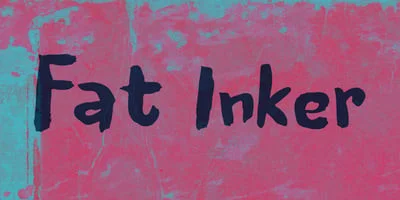
Fat Inker Font
Usage Examples: Fat Inker Font is perfect for bold branding, eye-catching posters, logo designs, and vibrant social media graphics.
Why It’s Exciting: This font’s chunky, playful style grabs attention instantly, making it ideal for projects needing a bold, modern vibe.
Font Families: Fat Inker Font includes Regular, Bold, and Italic variants, offering versatility for creative designs.
Elevate your design game with Fat Inker Font! Its unique, thick letterforms create a striking visual impact, perfect for standing out in competitive digital spaces. Whether you’re crafting a logo, designing a website banner, or creating print materials, Fat Inker Font delivers a fresh, contemporary look. Its clean lines and bold aesthetic ensure readability while adding personality to your projects. Download Fat Inker Font today to test its potential, but remember to secure a commercial license for professional use. With its range of styles, including Regular, Bold, and Italic, this font adapts to various design needs, from playful to professional. Don’t miss out on enhancing your brand’s visibility with this dynamic typeface!